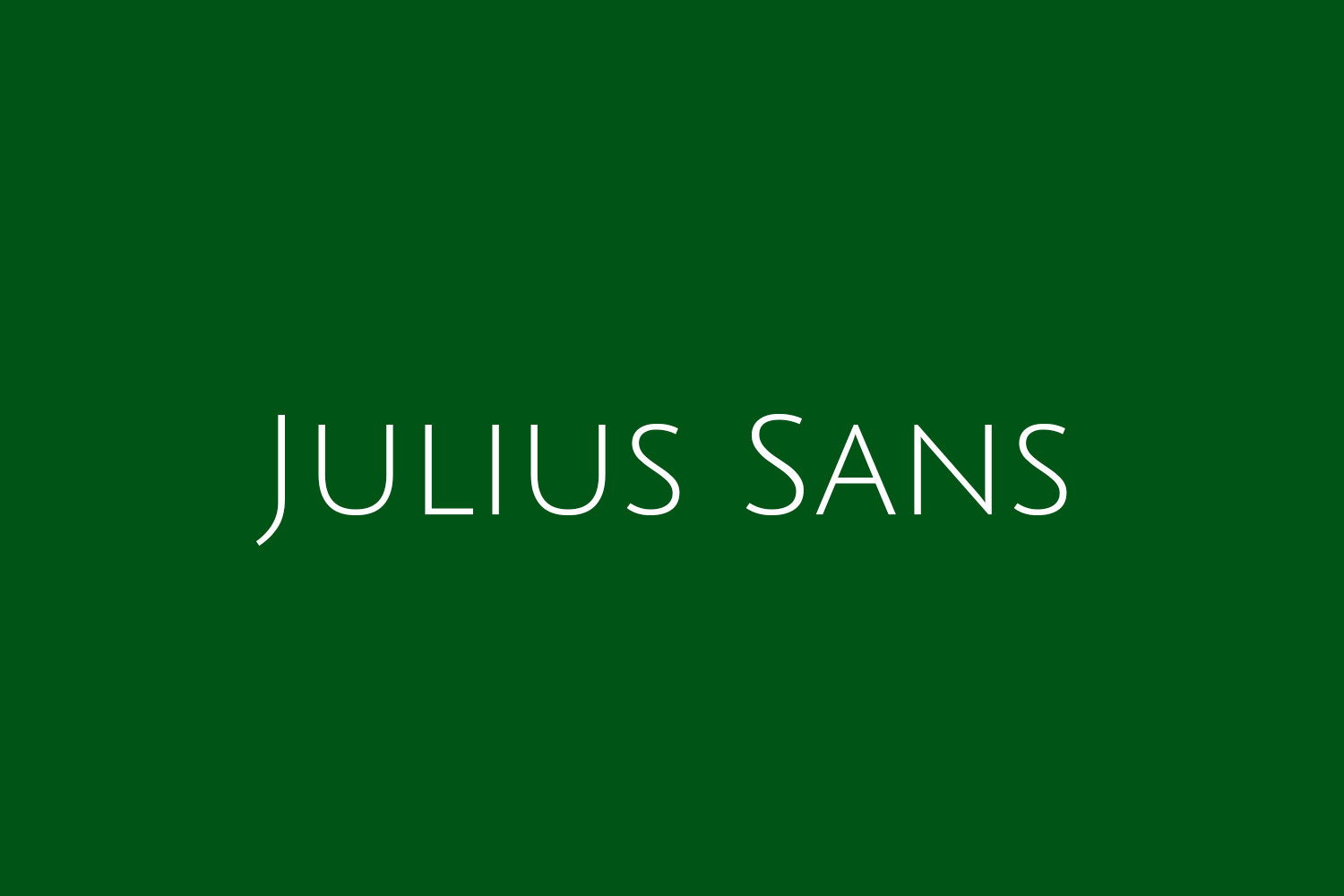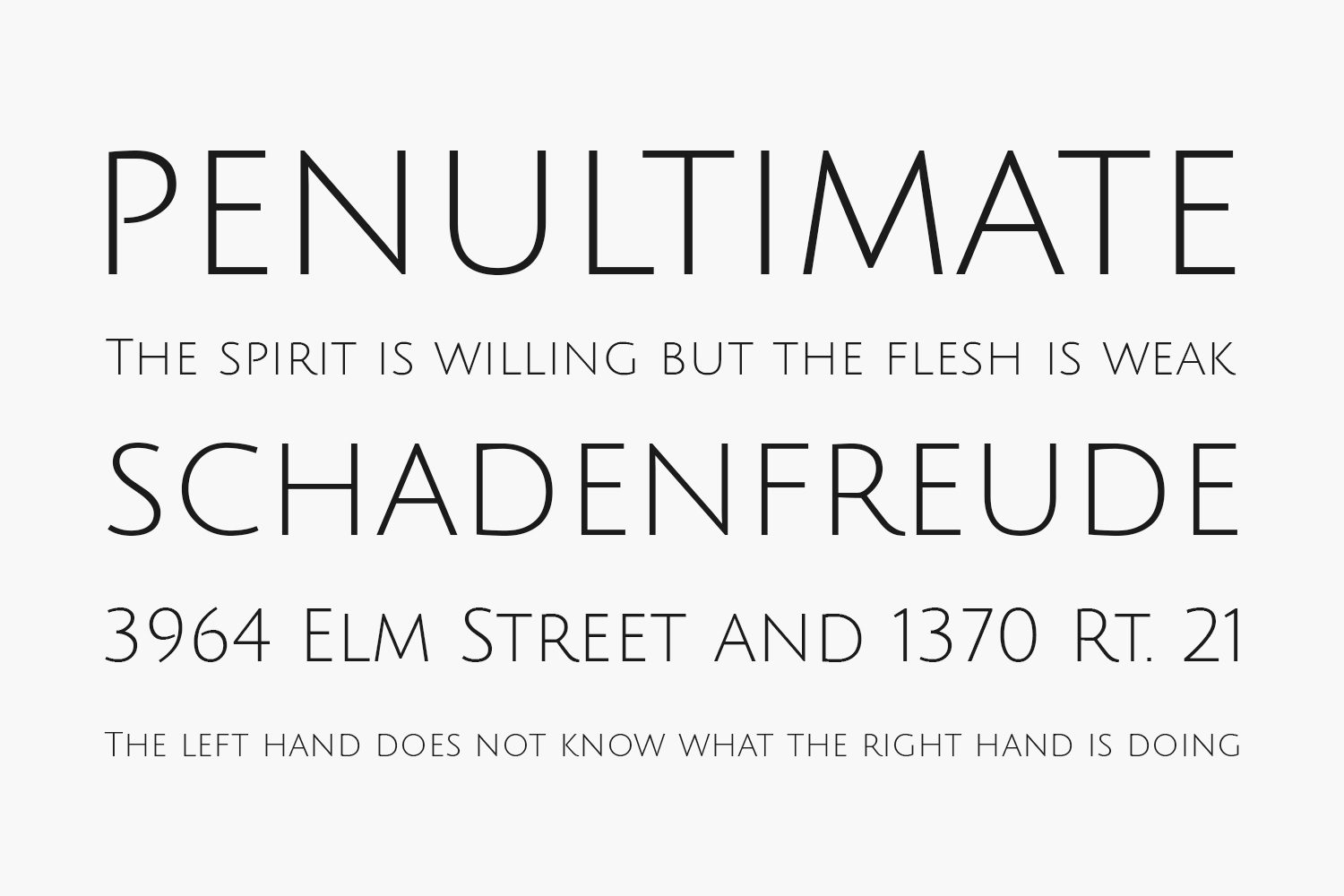
Julius Sans Free Font is a sans serif typeface family from Chilean type foundry LatinoType. The Principle Designer was Luciano Vergara.
Designed by Latinotype